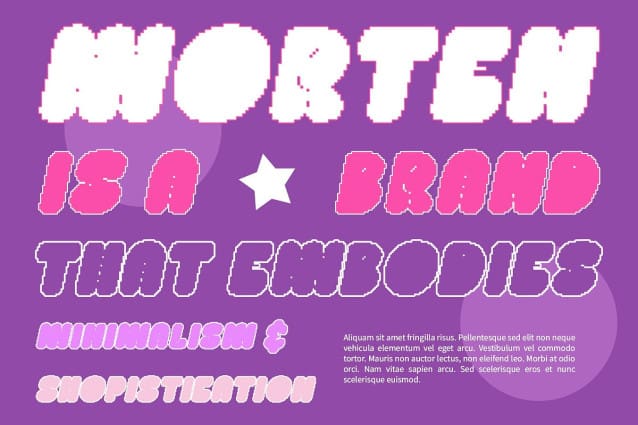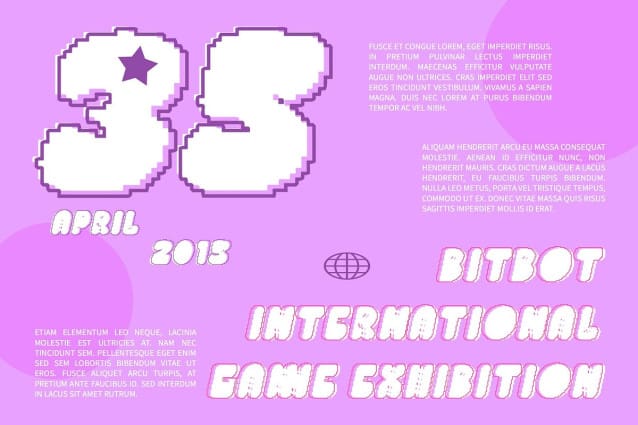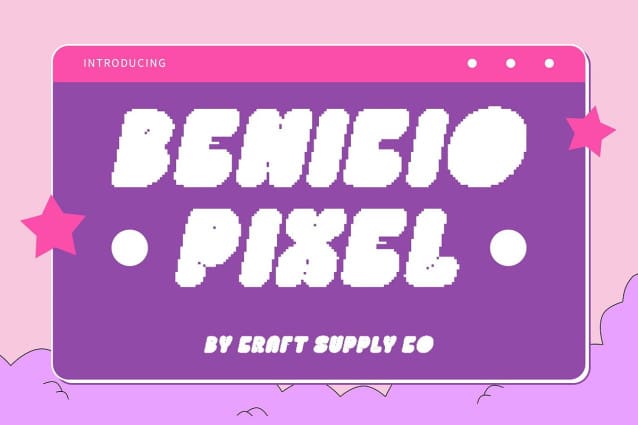
Benicio Pixel Font
Benicio Pixel Font is a bold, bubble-shaped display font that radiates fun and cheerfulness. Its rounded, oversized letterforms create a playful and inviting aesthetic, while the pixelated texture adds a modern digital touch, making it perfect for vibrant and youthful designs.
A Unique Blend of Bubble Forms and Digital Texture The font’s soft, bubble-like shapes are enhanced by the pixel effect, adding a lively, retro-digital character to the design. This combination creates a dynamic, engaging look that’s ideal for designs aimed at children, playful branding, or any project that needs a fun, energetic vibe.
Perfect for Posters, Branding, and Children’s Designs Benicio Pixel’s bold, rounded forms ensure excellent readability while still capturing attention. It’s perfect for creating eye-catching posters, playful branding, and cheerful children’s materials. The pixel effect adds an element of nostalgia, making it a great choice for retro-inspired yet modern designs.
Conclusion Benicio Pixel is the go-to font for designers seeking a bold, playful typeface with a modern digital twist. Its bubble-shaped design and pixel effect make it perfect for creating fun, lively designs, ideal for posters, branding, and children’s materials.